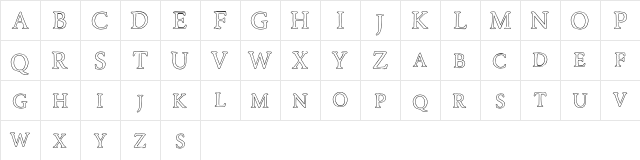
Road Race Free Outline
| Style | Outline |
| Foundry | Craft Supply Co |
Design Context for Road Race Free Typeface
Road Race Free brings ornamental detail and strong personality to headlines and identities, where visual impact matters more than quiet functionality.